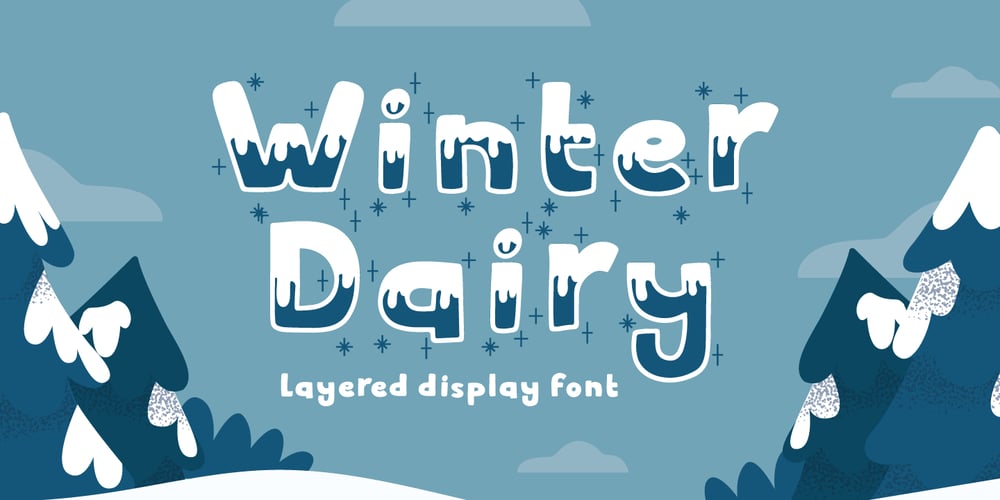
Winter Dairy Font Family was designed by Fadli Ramadhan Iskandar and published by Attype Studio. Winter Dairy contains 3 styles and family package options. Winter Dairy is a layered display christmas font with shiny & drop snow effect. This font perfect for winter designs. Combine it with Winter Dairy shiny & display style to make 3D effects better!Winter Dairy perfect for christmas promotion, branding, logo, invitation, stationery, social media post, product packaging, merchandise, blog design, game titles, cute style design, Book/Cover Title and more.What’s Included :- Winter Dairy Font Family- Layered Font- Multilingual Support —Hope you enjoy with our font!Attype Studio